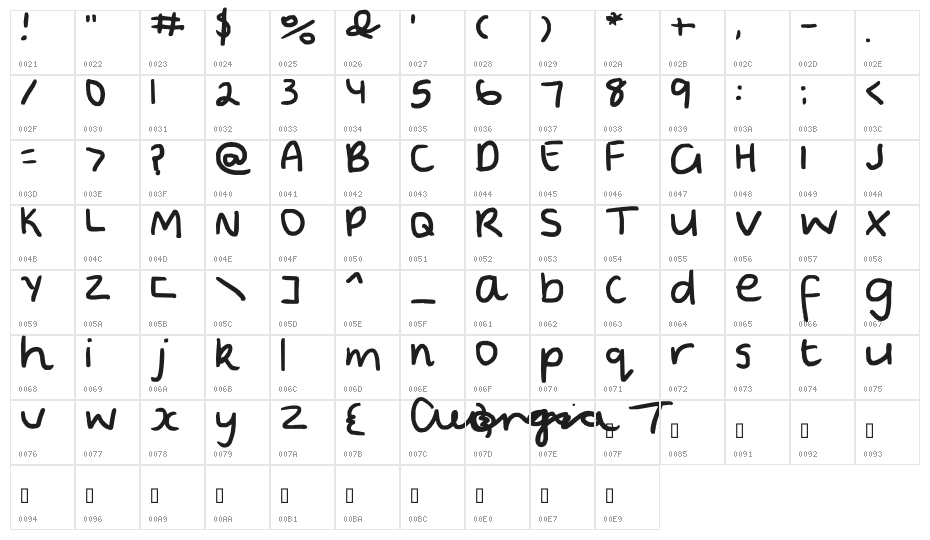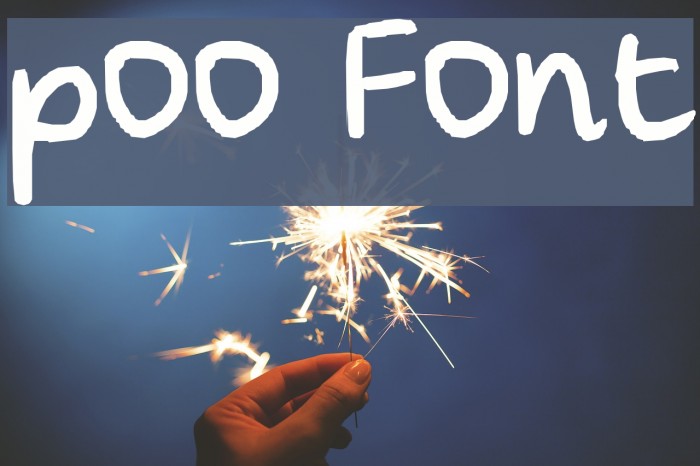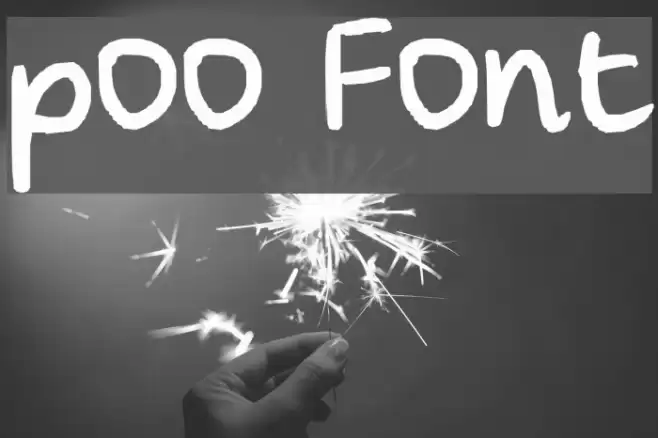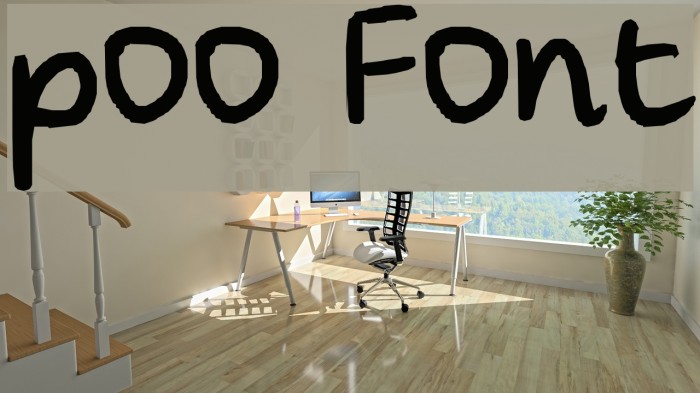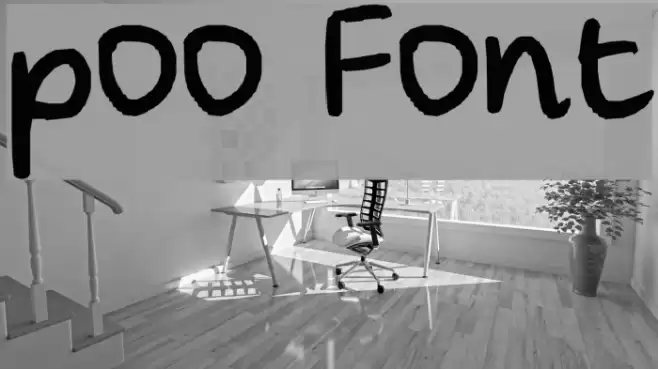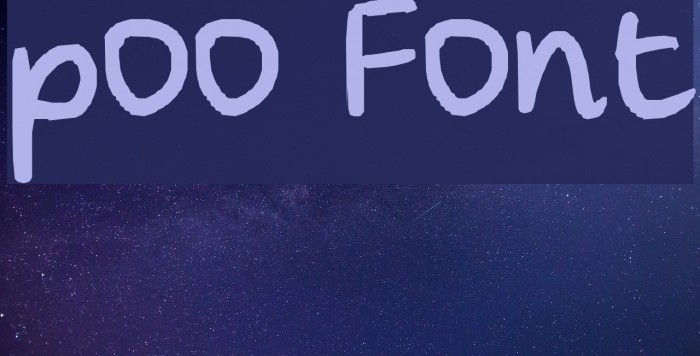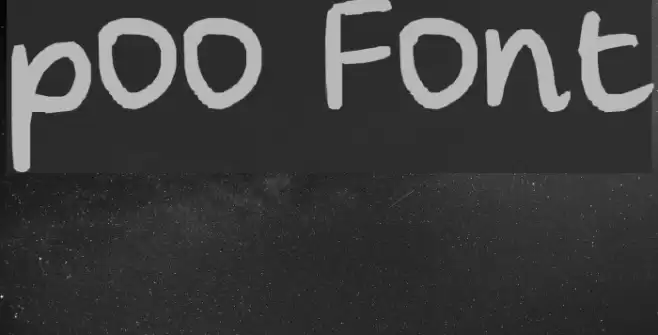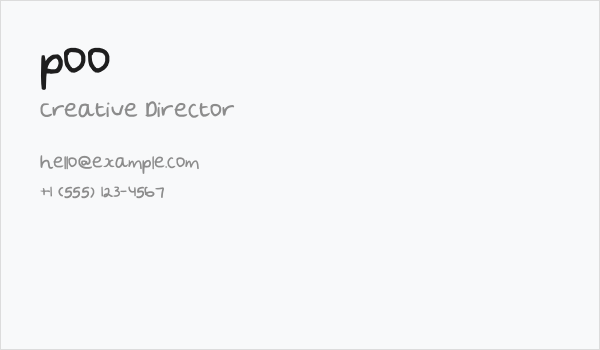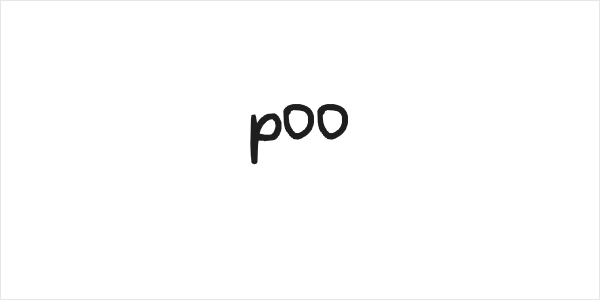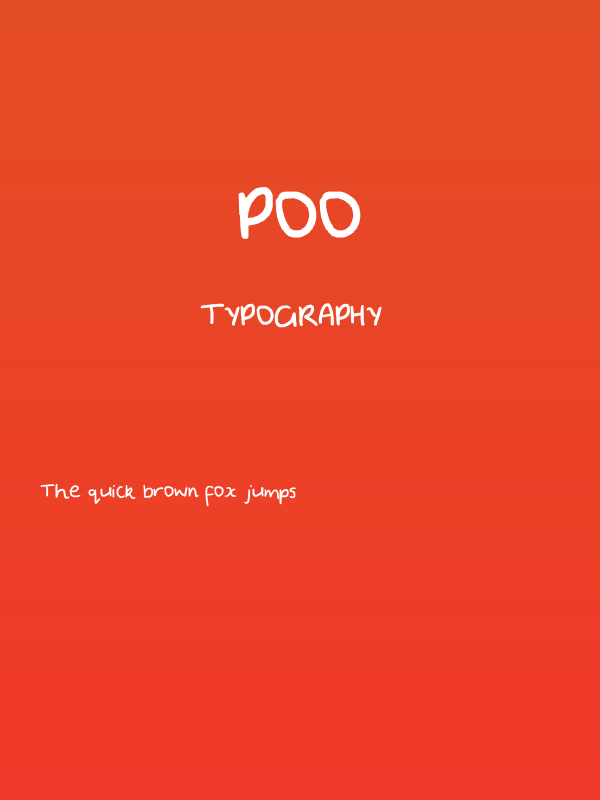
poo Font
poo Description
This font features a playful, handwritten style with a casual and informal appearance. The letters are slightly irregular, adding a personal touch that mimics natural handwriting. The uppercase and lowercase letters maintain a consistent flow, while the numbers and special characters are easily distinguishable. The strokes are moderately thick, providing good legibility without sacrificing the whimsical charm. This font is versatile, suitable for projects that require a friendly and approachable aesthetic.
| Proposed Projects | Ideal for greeting cards, children's books, personal blogs, and creative branding. |